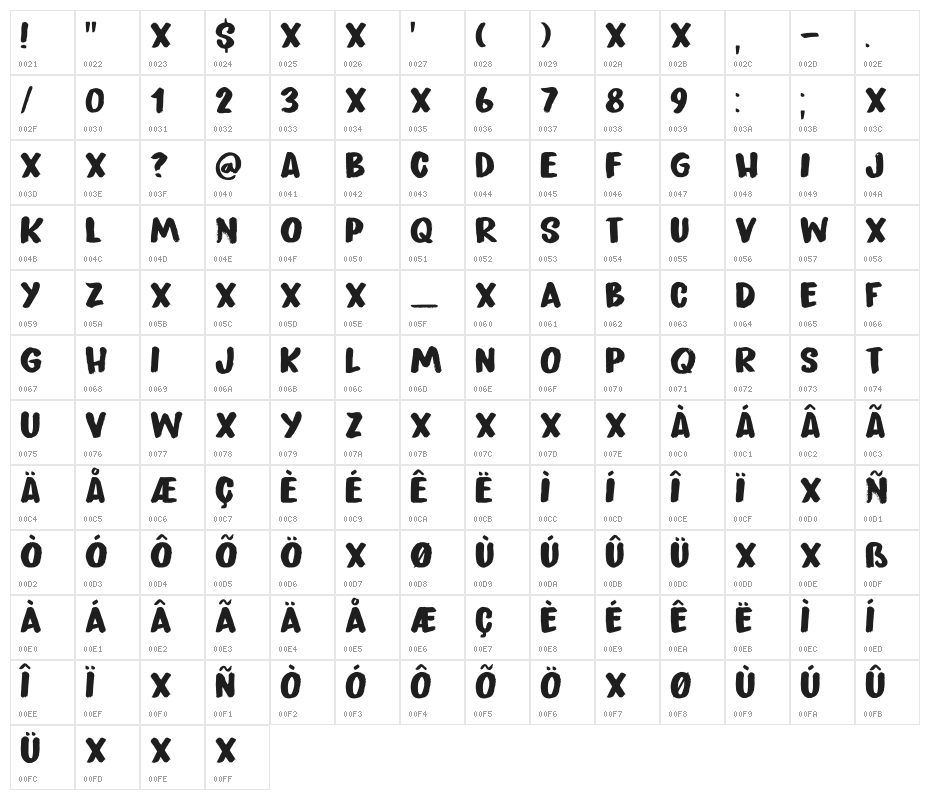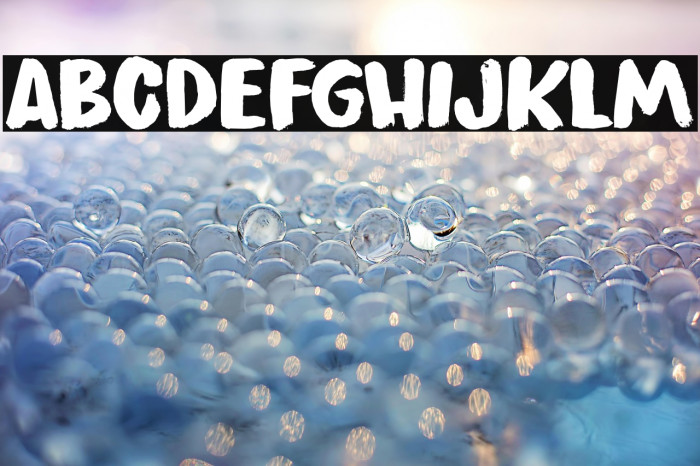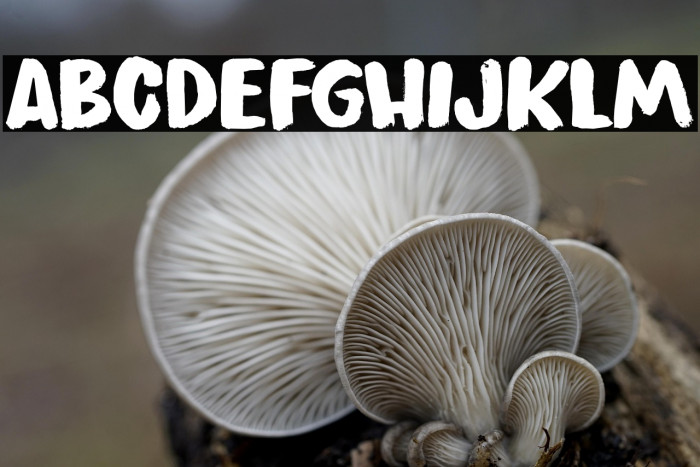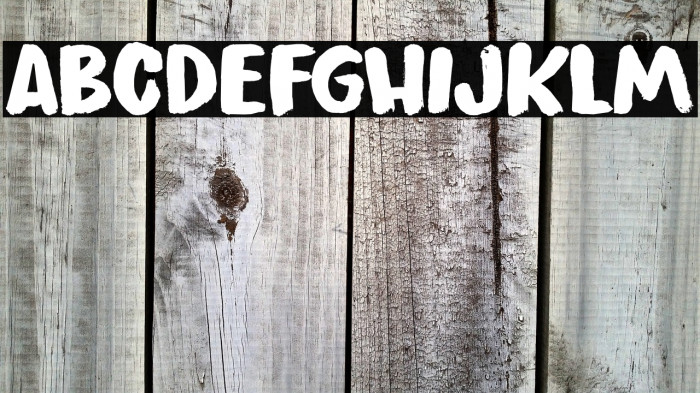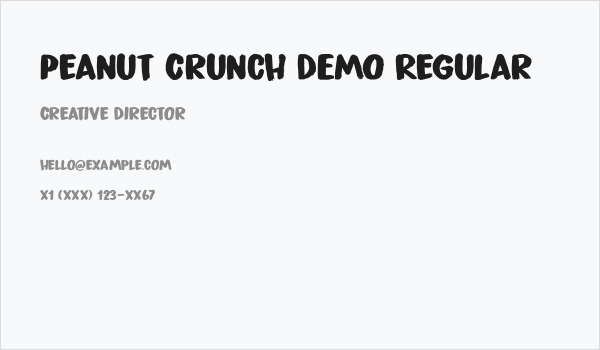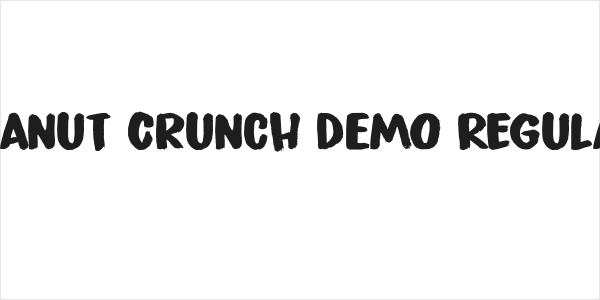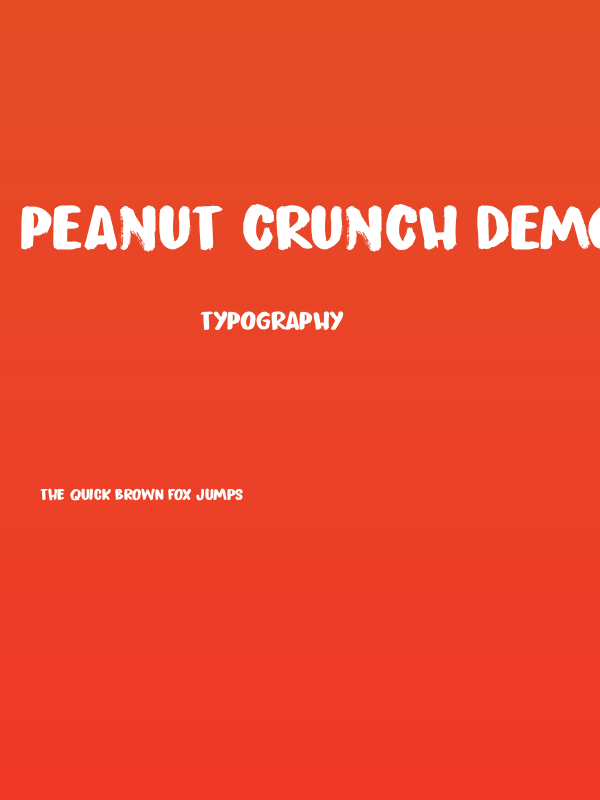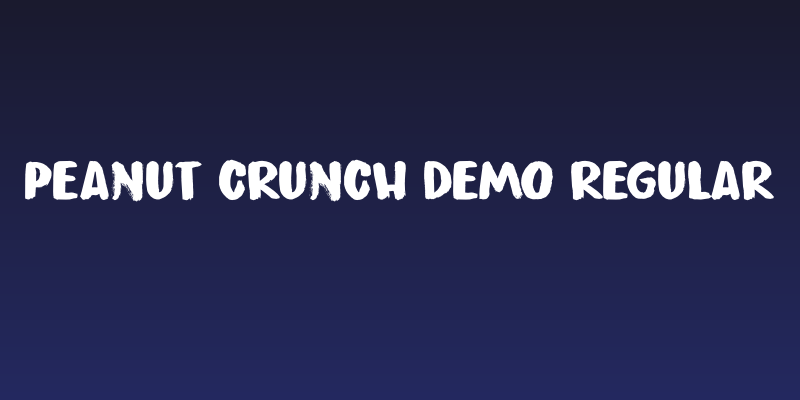
Peanut Crunch DEMO Regular Font
Peanut Crunch DEMO Regular Description
This font features a bold and expressive style with a hand-painted appearance. The characters are thick and have a textured look, reminiscent of brush strokes. The uppercase letters are uniform in height, while the lowercase letters maintain a consistent baseline, adding to the cohesive look. The numbers and special characters follow the same bold and dynamic style, making them stand out. The overall design is playful and energetic, suitable for projects that require a strong visual impact.
| Proposed Projects | Ideal for posters, branding, packaging, and any design that requires a bold, artistic touch. |